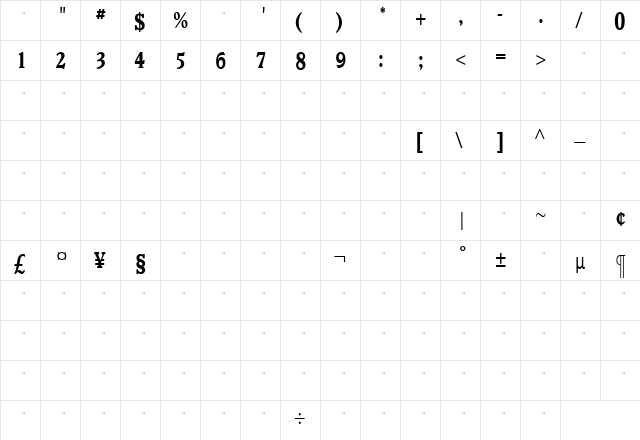
VeroneseBoldCondensedTab Medium Font Preview
Design Context for VeroneseBoldCondensedTab Typeface
VeroneseBoldCondensedTab offers clean, dependable letterforms without strong stylistic allegiance, making it a practical choice for designers who need flexibility. Its bold stroke weight gives it real presence on the page. The condensed width makes it efficient for tight spaces without sacrificing legibility.